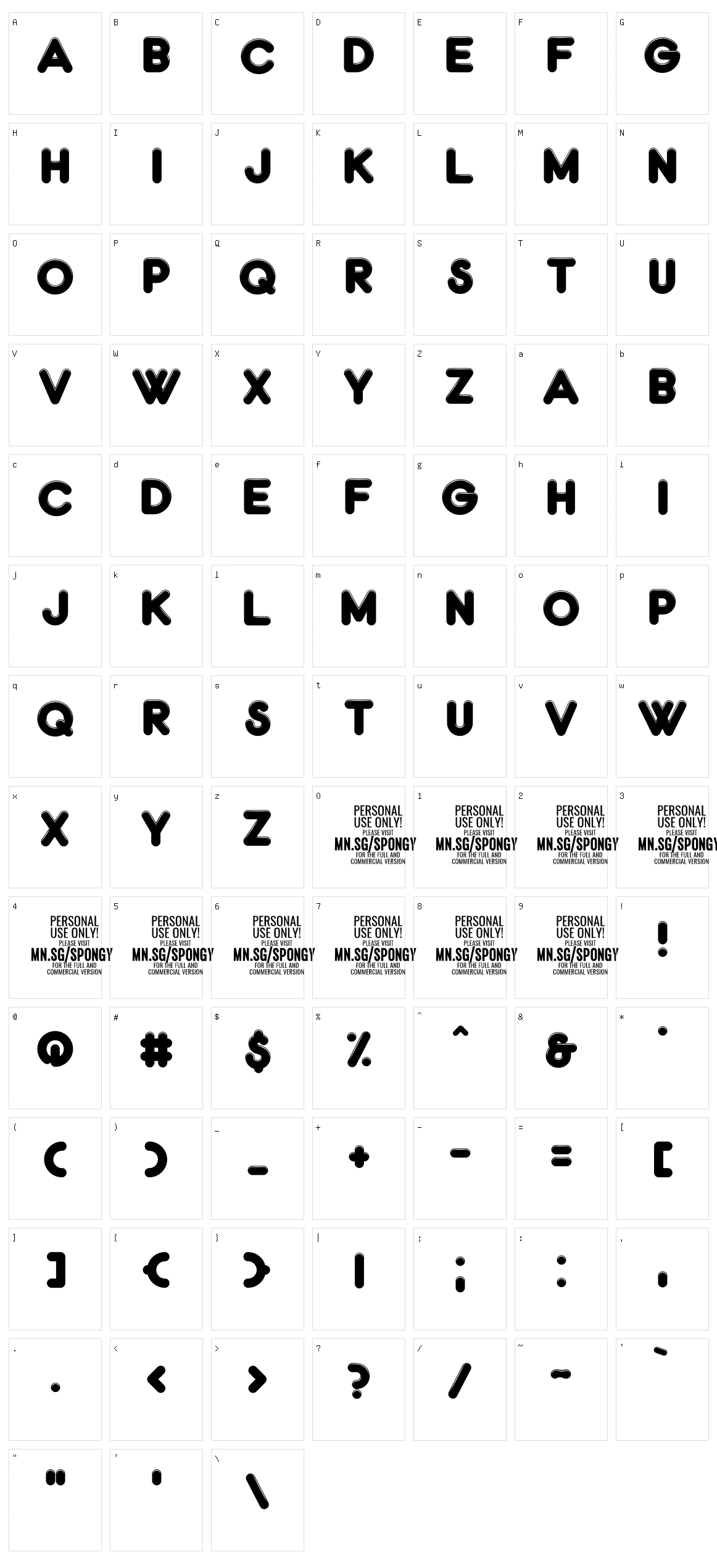
Spongy is a rubbery sans-serif typeface.
It has round, soft shapes but a stiff and funny character. A quirky, clowny font, Spongy's highlighted cartoon letters looks like levitating balloons.
Drawn and created by Mans Greback in 2021, this comic lettering has a satirical style and a light-hearted personality.
It is provided as Highlighted, Bold, Light, Solid and Outlined!
Additionally, it includes a color font, in the styles Blue, Purple, Orange and Green.
The combination of these jolly jelly fonts makes for the perfect set of party and birthday types.
The font is built with advanced OpenType functionality and has a guaranteed top-notch quality, containing stylistic and contextual alternates, ligatures and more features; all to give you full control and customizability.
It has extensive lingual support, covering all Latin-based languages, from North Europe to South Africa, from America to South-East Asia.
It contains all characters and symbols you'll ever need, including all punctuation and numbers.